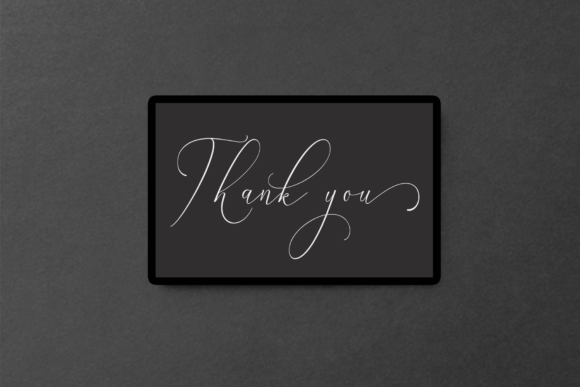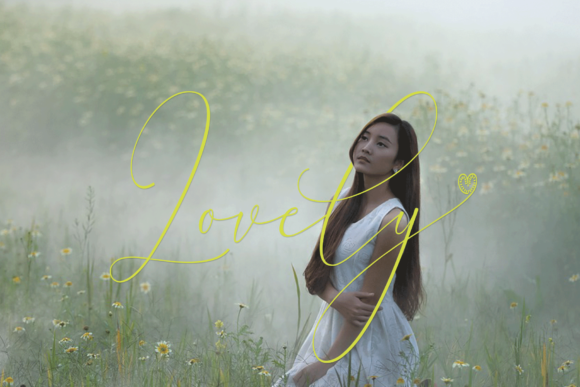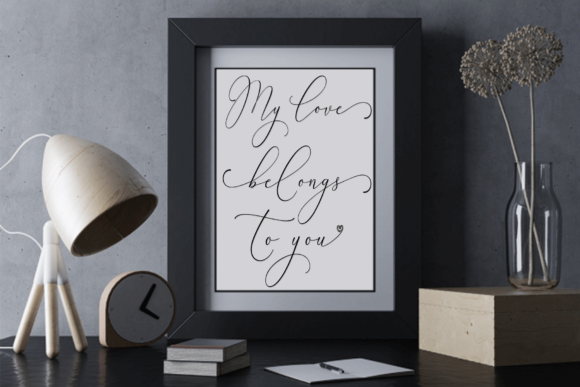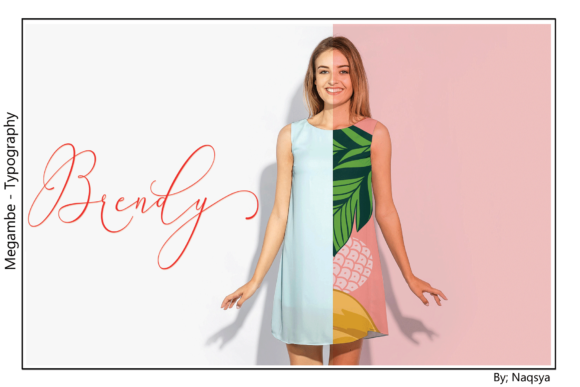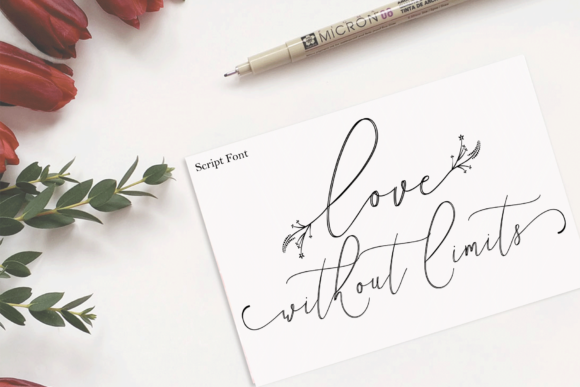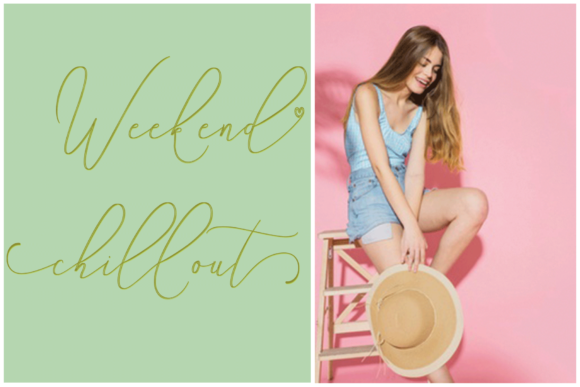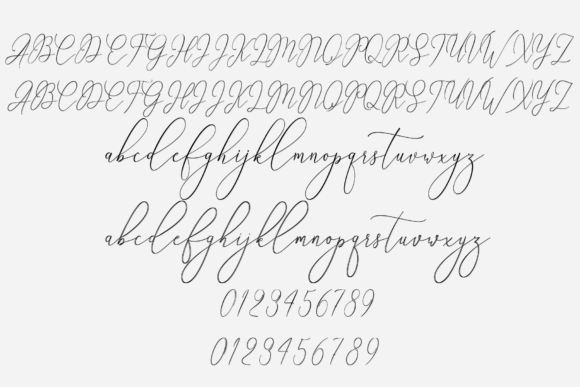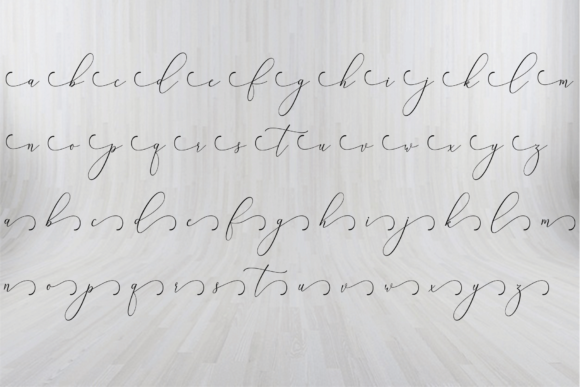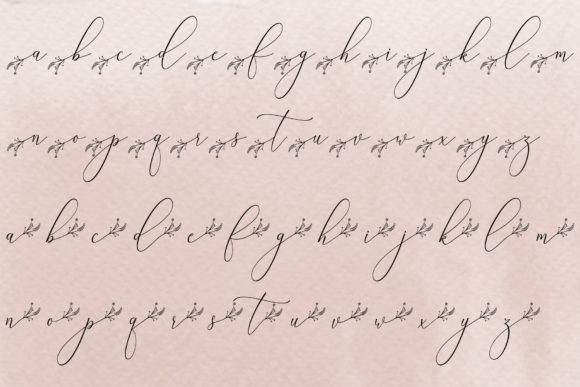
Megambe Font
About Megambe Font
Megambe is an elegant handwriting font perfect for making elegant stylish statements. Get inspired by its romantic appearance!